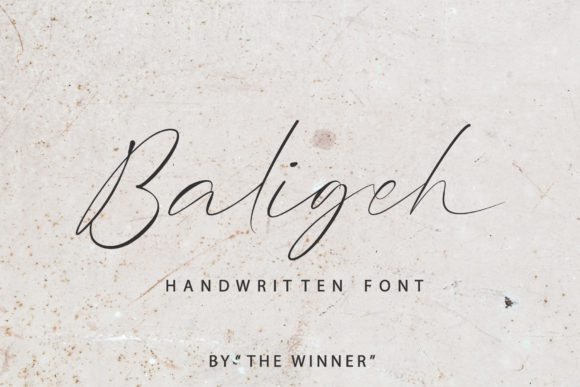
Prepare yourself for an elegant and modern calligraphy font, designed to add a touch of sophistication and charm to your digital creations: Baligeh. This remarkable script font exudes an unparalleled charm, flowing effortlessly with graceful curves and enchanting swirls, capturing the essence of handwritten finesse. Step into the world of visual storytelling as Baligeh takes you on a journey through aesthetics and artistry.
Dive into Baligeh's world of infinite possibilities, where you'll find beauty in every stroke. Craft captivating social media posts that demand attention, design advertisements that resonate with your audience, and create product packaging that exudes elegance. Whether you're a visionary graphic designer, a passionate photographer, or an ambitious entrepreneur, Baligeh is your ultimate creative companion.
Let Baligeh's magic unveil the beauty of your brand identity. Design logos that command respect and make a lasting impression. Host special events that ooze sophistication and refinement. Baligeh's versatility knows no bounds, catering to your every creative need.
Embark on a journey of visual captivation as Baligeh transforms your digital world. Experience the joy of creating stunning product labels that elevate your brand's image. Unleash your creativity in designing photography projects that showcase art in its purest form. Baligeh is the key to unlocking your potential, enabling you to turn your vision into a tangible reality.
Don't settle for ordinary fonts that blend into the background. Choose Baligeh and see your designs come to life with a touch of extraordinary. Stand out from the crowd, leave an unforgettable mark, and redefine the boundaries of creativity. Baligeh is more than just a font; it's an invitation to a world where beauty and elegance reign supreme.